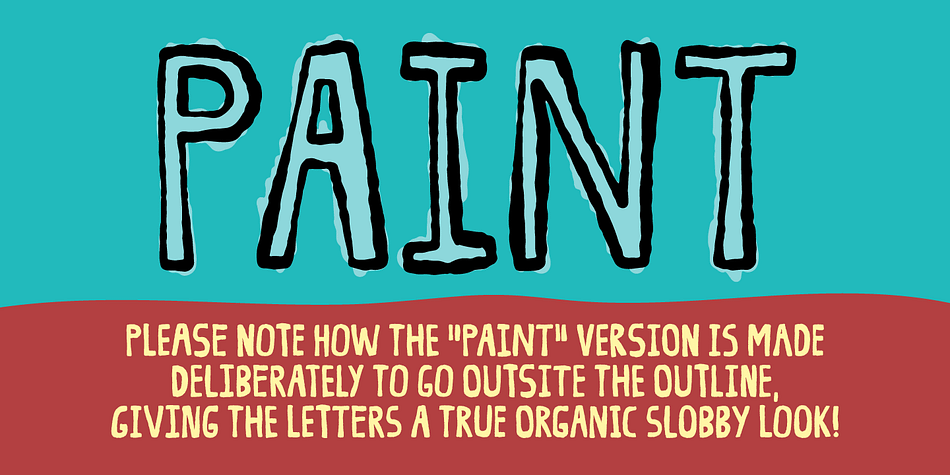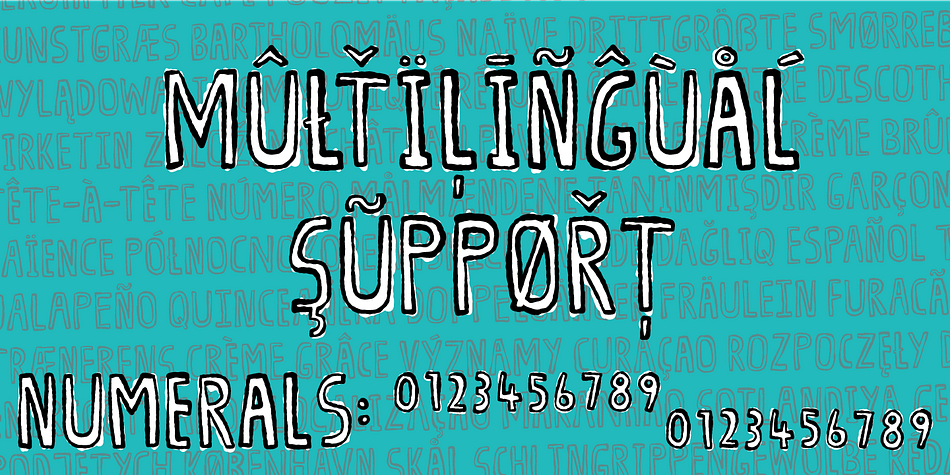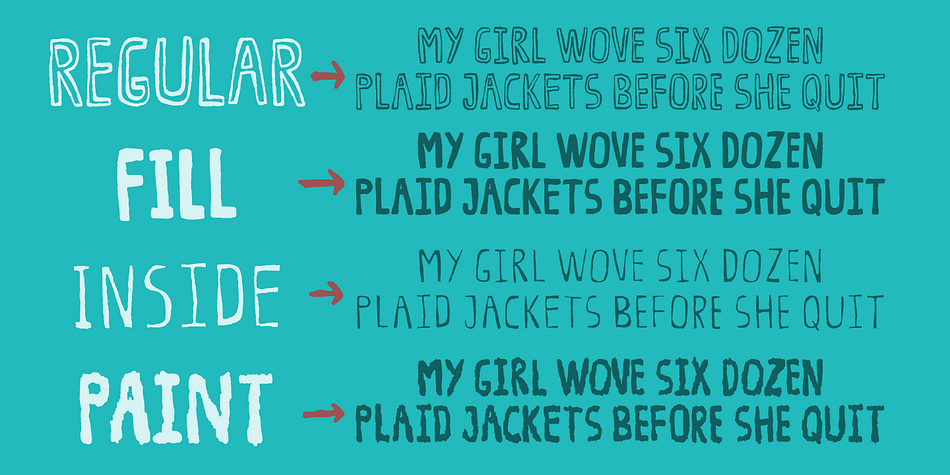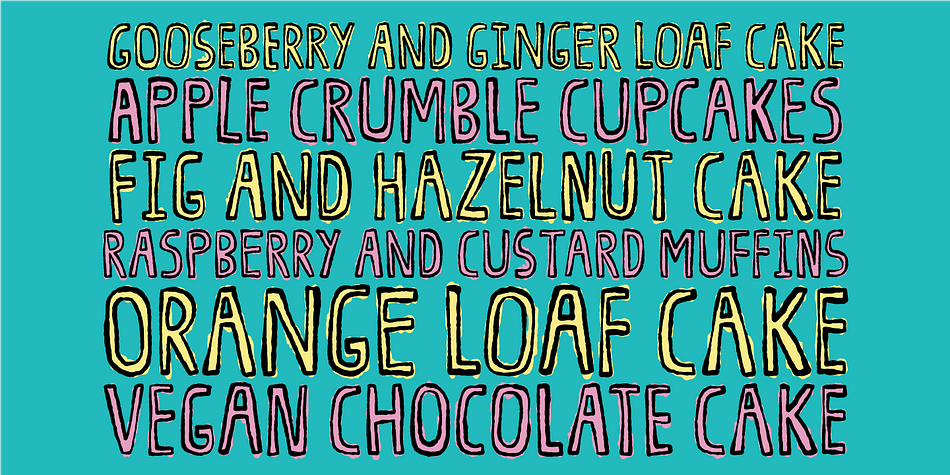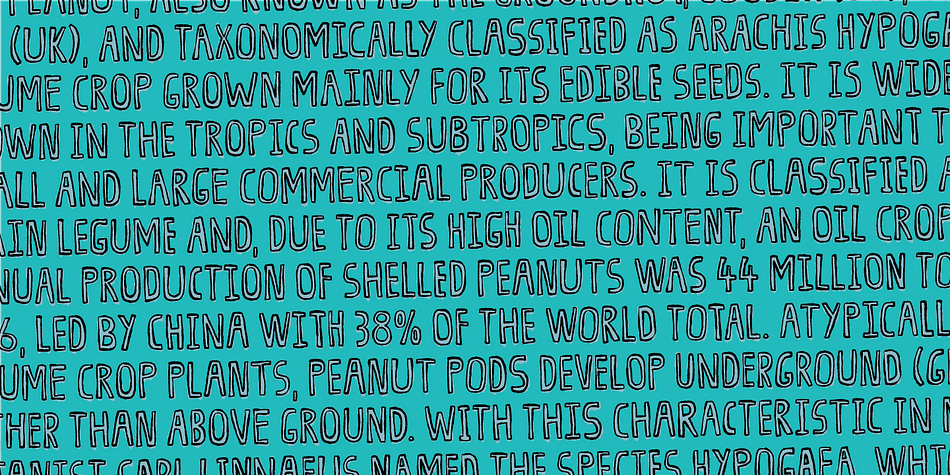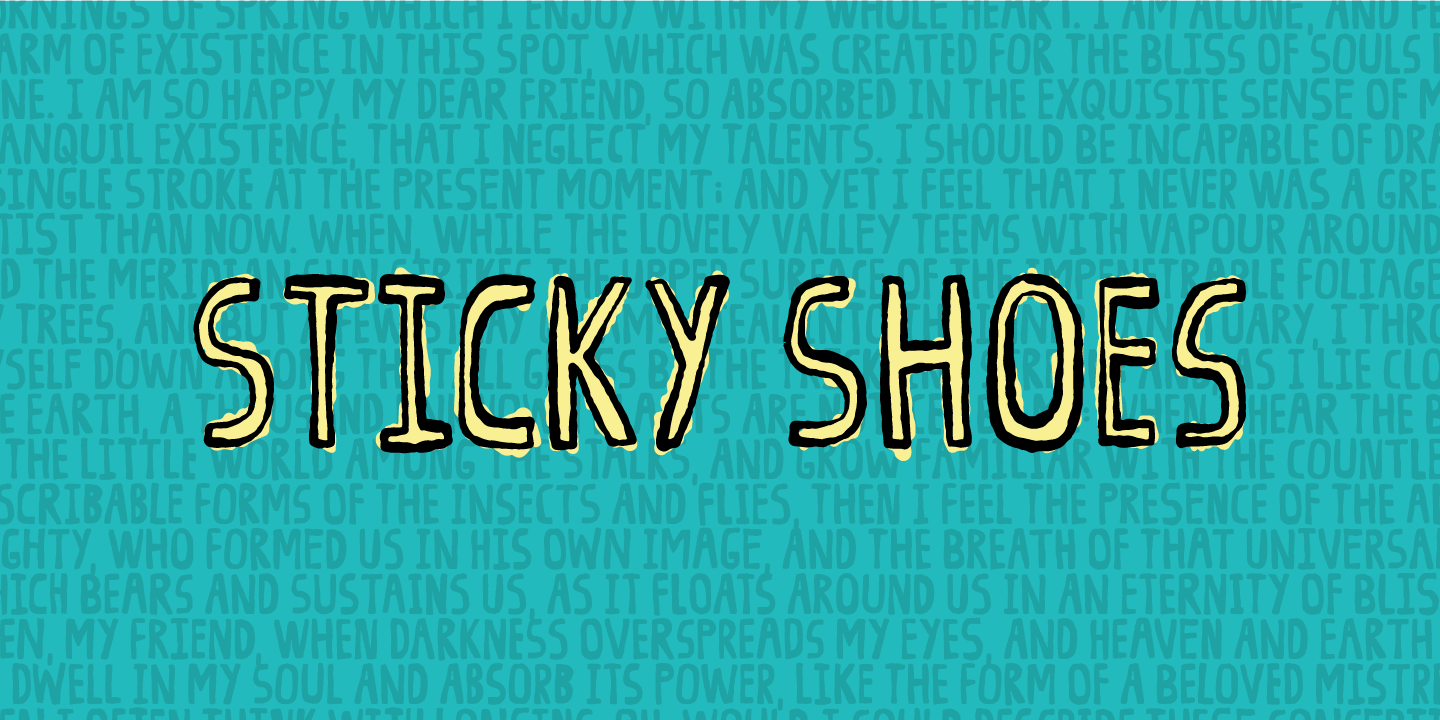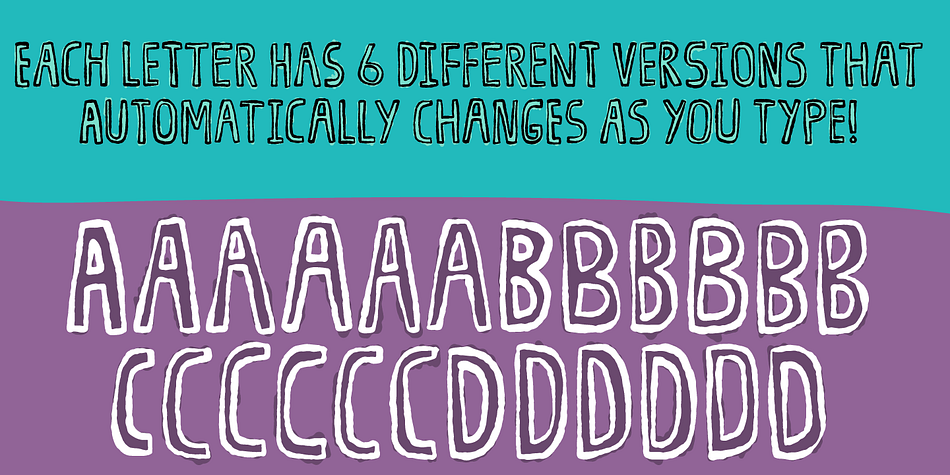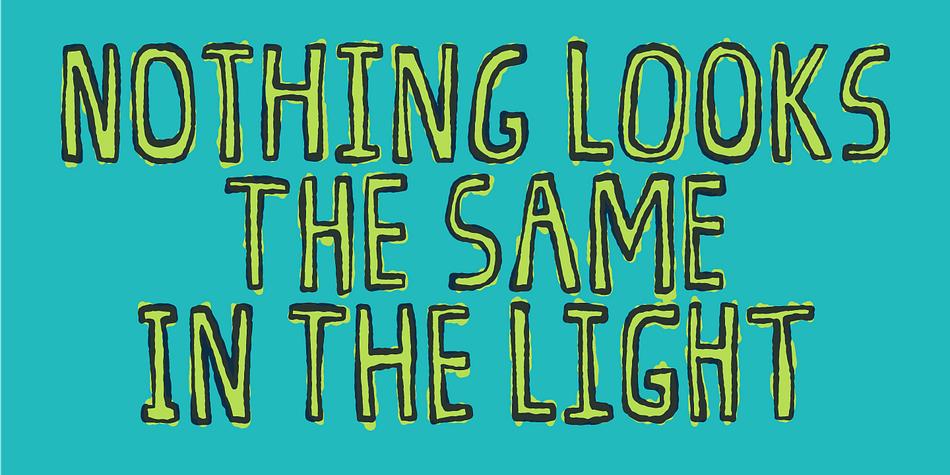
Sticky Shoes
Designed by Jakob Fischer, Sticky Shoes is a hand display and kids font family. This typeface has four styles and was published by Bogstav.
Sticky Shoes was inspired by a sign at a local flea market. The artist behind the sign obviously didn’t care much about painting the letters “in the right way” - leaving a slobby and uneven impression. And what is wrong with that? Nothing, if you ask me. I tried my best to capture the charm and innocence behind that sign in Sticky Shoes. I even made the paint version go outside the outline in the Regular version!
I added 6 different versions of each letter, and they automatically changes as you type. That goes for all 4 versions, and they even mix very nicely!